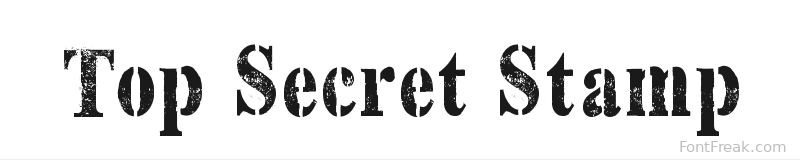
Top Secret Stamp
The Top Secret Stamp font by Galdino Otten Fonts is a distinctive decorative typeface that exudes an air of intrigue and authenticity. Released in 2013, this freeware font features a bold, stamped appearance that mimics the look of official documents or classified materials. The font is characterized by its uneven stroke weight and textured finish, giving each letter a handcrafted quality. The spacing is carefully designed to enhance readability while maintaining its unique aesthetic, making it an excellent choice for projects that require a sense of urgency or secrecy.
This font is perfect for a variety of creative applications. It shines in contexts such as vintage-inspired wedding invitations, where its unique flair can evoke a sense of nostalgia. Movie posters would benefit from the Top Secret Stamp font’s bold presence, adding a touch of drama and excitement. Additionally, it can be effectively used in restaurant menus, particularly for themed eateries that focus on a playful or quirky atmosphere. Graphic designers and content creators will find it useful for creating eye-catching promotional materials or social media graphics that stand out in a crowded market.
The target audience for this font includes graphic designers, small business owners, and content creators looking for a unique typeface to elevate their projects. Its distinctive style appeals to those who want to convey a message of importance or secrecy.
What makes the Top Secret Stamp font particularly noteworthy is its ability to combine functionality with a strong visual impact. Its unique stamped design not only captures attention but also evokes a sense of authenticity and character, making it a standout choice for anyone looking to add a touch of intrigue to their designs. Don’t miss the opportunity to explore the Top Secret Stamp font free download and elevate your creative projects today.